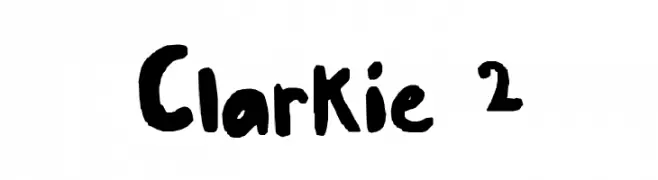
( Fonts by Kat Vincent )
A bold, playful handwritten font with rounded, consistent strokes.
( Fonts by Darko Bogdanov )
A bold, playful handwritten font with rounded strokes and a casual style.
( Fonts by Darko Bogdanov )
A playful, handwritten font with a casual and whimsical style.
( Fonts by Tatiana Rock )
A playful, handwritten font with rounded, irregular letterforms.